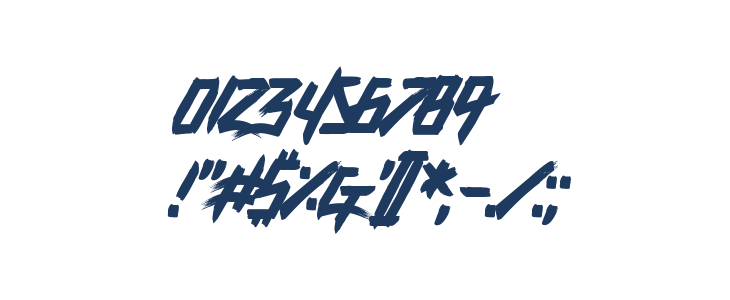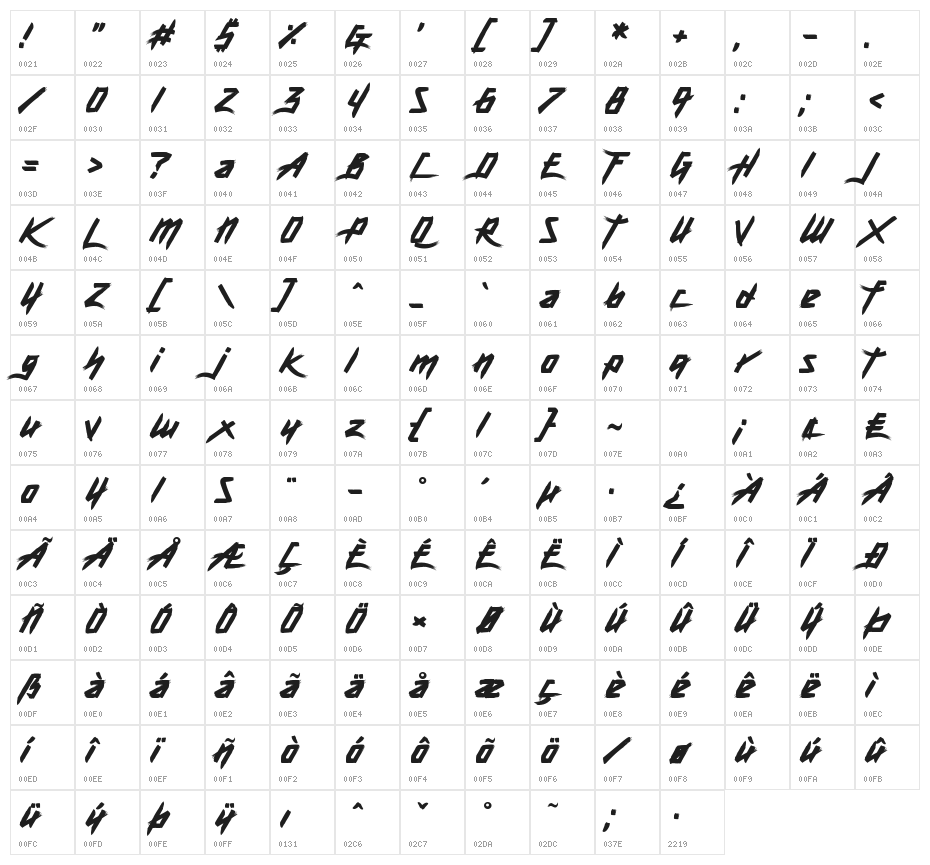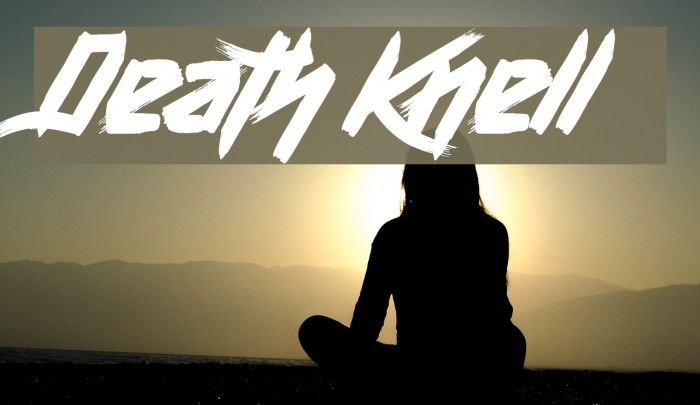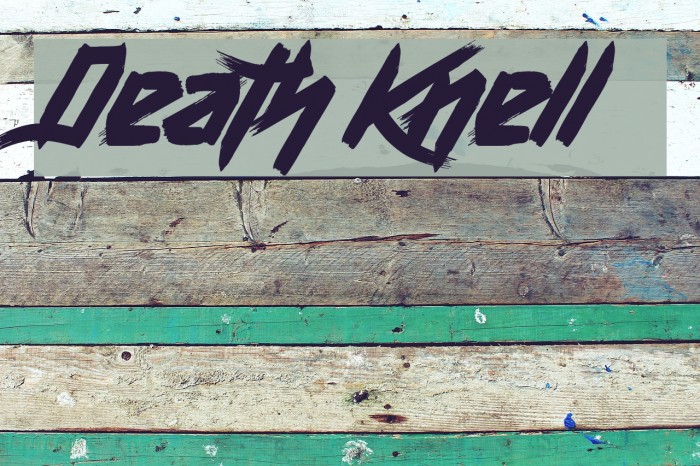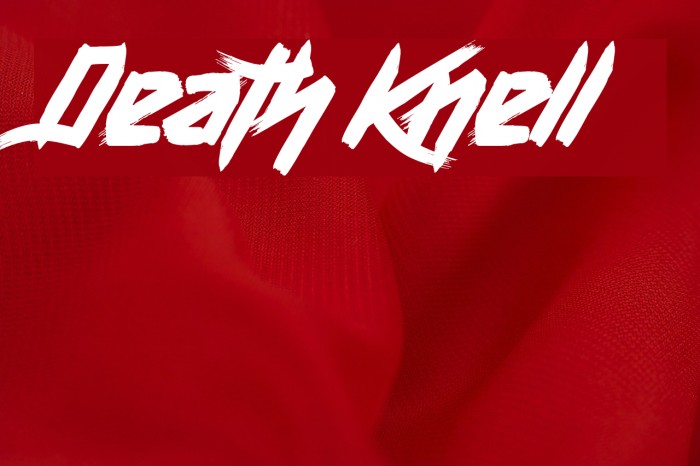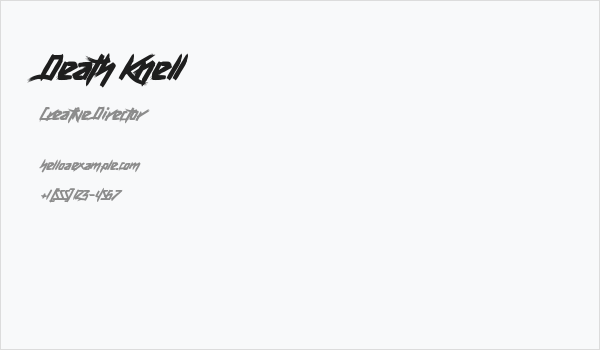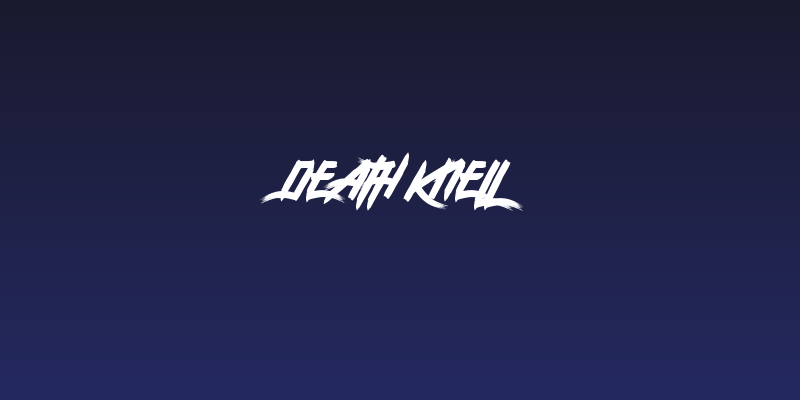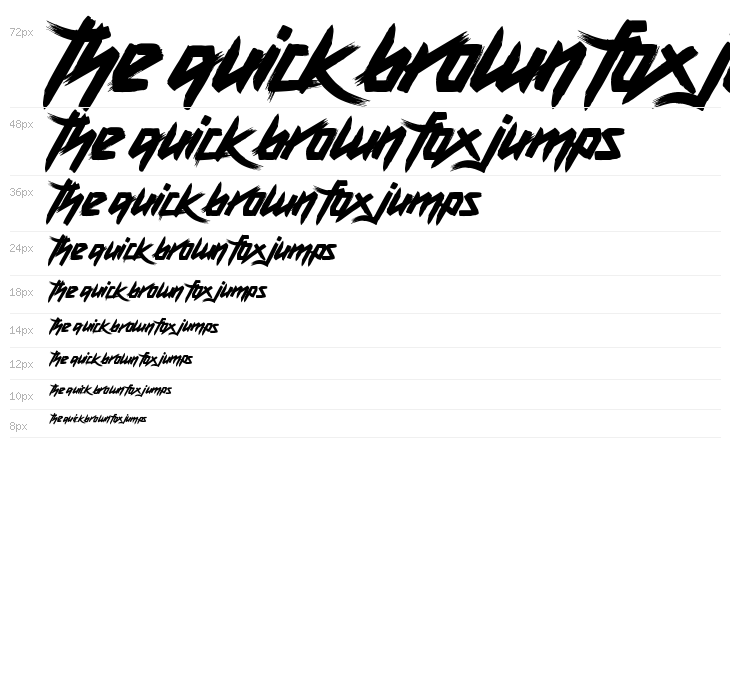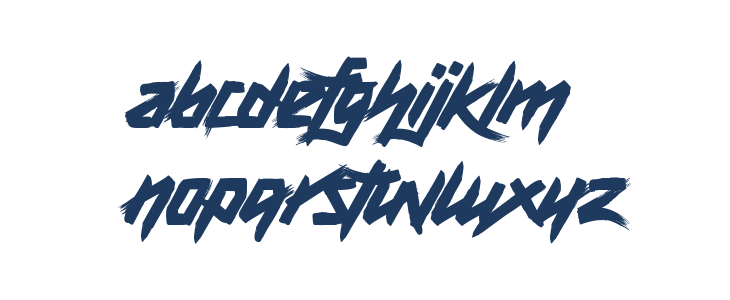
Death Knell Font
Death Knell Description
This font exudes a bold, aggressive style with its sharp, angular strokes and dynamic brush-like appearance. The characters are designed with a sense of motion and energy, reminiscent of graffiti or street art. The uppercase and lowercase letters maintain a consistent style, with exaggerated angles and a slightly condensed form. Numbers and special characters follow the same aesthetic, ensuring a cohesive look across all text elements. The font's high contrast and thick strokes make it highly legible and impactful, perfect for grabbing attention.
| Overall Style | Modern, Urban |
| Proposed Projects | Ideal for projects requiring a strong visual impact, such as posters, album covers, or branding for edgy or urban-themed products. |